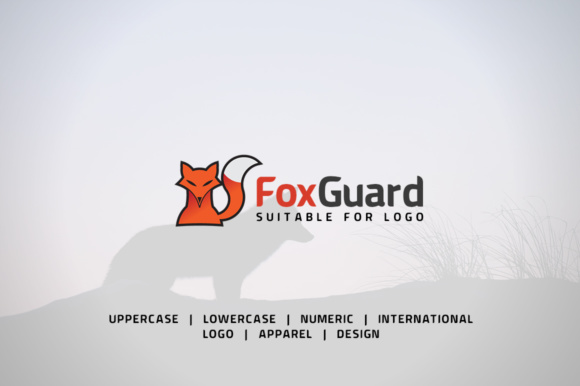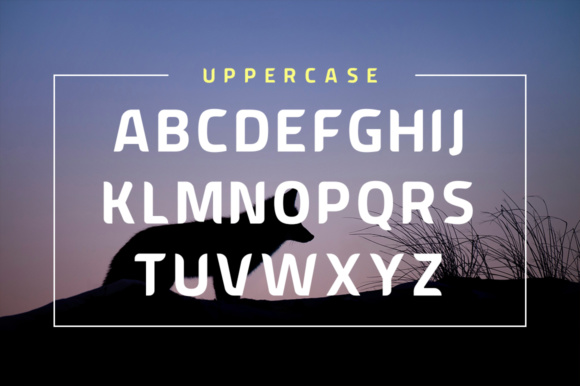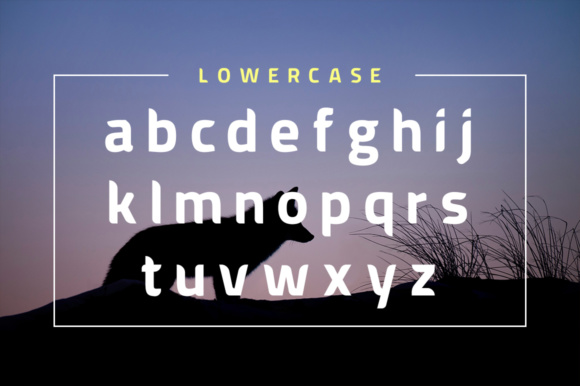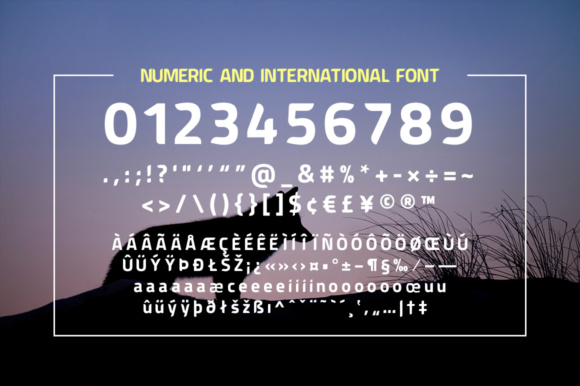
Introducing American Fox Font: The Ultimate Sans Serif for Creative Projects
Are you on the hunt for a font that can elevate your design projects to the next level? Look no further than the American Fox Font. This striking sans serif font is perfect for creating stunning posters, logos, music covers, clothing designs, and many other cool projects that require a bold and eye-catching aesthetic.
What Makes American Fox Font Stand Out?
American Fox Font boasts a unique and modern design that sets it apart from other sans serif fonts. Its clean lines, precise curves, and balanced proportions make it a versatile font that can be used for a wide range of applications. Whether you’re a designer, crafty DIY enthusiast, or simply someone who loves to create, American Fox Font is sure to become a favorite in your collection.
Key Features of American Fox Font
- Striking Sans Serif Design: American Fox Font features a bold and eye-catching sans serif design that’s perfect for making a statement.
- Versatile: This font is suitable for a wide range of projects, from posters and logos to music covers and clothing designs.
- Easy to Read: Despite its bold design, American Fox Font is easy to read, making it perfect for use in both digital and print applications.
- High-Quality: This font is designed with high-quality and precision in mind, ensuring that it looks great in any size or resolution.
American Fox Font is a dream come true for designers and crafters who are looking for a font that can help them create stunning and professional-looking projects. Whether you’re creating a logo for a new business, designing a poster for a concert or event, or simply crafting a unique piece of art, American Fox Font is the perfect choice.
Ideas for Using American Fox Font
So, what can you create with American Fox Font? The possibilities are endless! Here are a few ideas to get you started:
- Posters: Create eye-catching posters for concerts, events, or promotions using American Fox Font.
- Logos: Design a bold and memorable logo for a new business or brand using American Fox Font.
- Music Covers: Give your music covers a professional and stylish look with American Fox Font.
- Clothing Designs: Create unique and stylish clothing designs using American Fox Font.
- DIY Projects: Use American Fox Font to add a personal touch to your DIY projects, such as signs, labels, or decorations.
Tips for Using American Fox Font
Here are a few tips to keep in mind when using American Fox Font:
- Experiment with Sizes: American Fox Font looks great in a variety of sizes, so don’t be afraid to experiment to find the perfect size for your project.
- Play with Colors: This font looks great in a range of colors, so try experimenting with different colors to find the perfect combination for your project.
- Use it with Other Fonts: American Fox Font pairs well with a range of other fonts, so try using it in combination with other fonts to create a unique and interesting look.
American Fox Font is a versatile and striking sans serif font that’s perfect for designers, crafters, and anyone who loves to create. With its clean lines, precise curves, and balanced proportions, this font is sure to become a favorite in your collection. So why wait? Download American Fox Font today and start creating stunning projects that showcase your unique style and creativity!